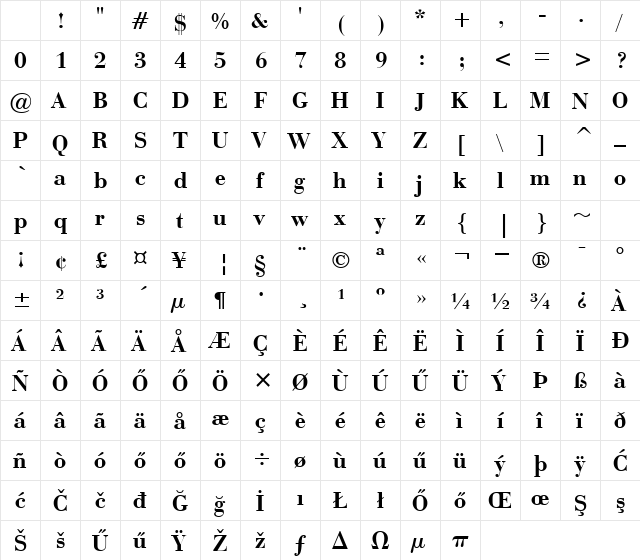
Complete H_Bauer Bodoni BT Bold glyph index. Displaying only characters natively supported by H_Bauer Bodoni BT Bold font.
H_Bauer Bodoni BT is a composed and adaptable typeface that performs quietly and consistently across a wide range of design contexts. Its bold stroke weight gives it real presence on the page.